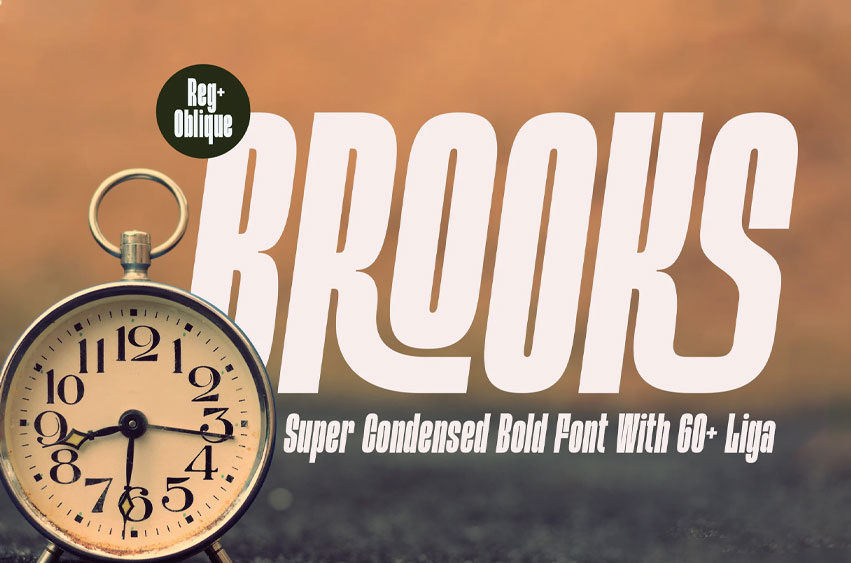
Brooks Font is a super condensed font that features 60+ ligatures, blending modern and vintage styles. It’s sleek, maximizes space while maintaining readability—perfect for bold headlines, logos, and branding. Versatile and highly customizable, Brooks adds a touch of sophistication to any project.
- Available in 2 styles, regular and oblique